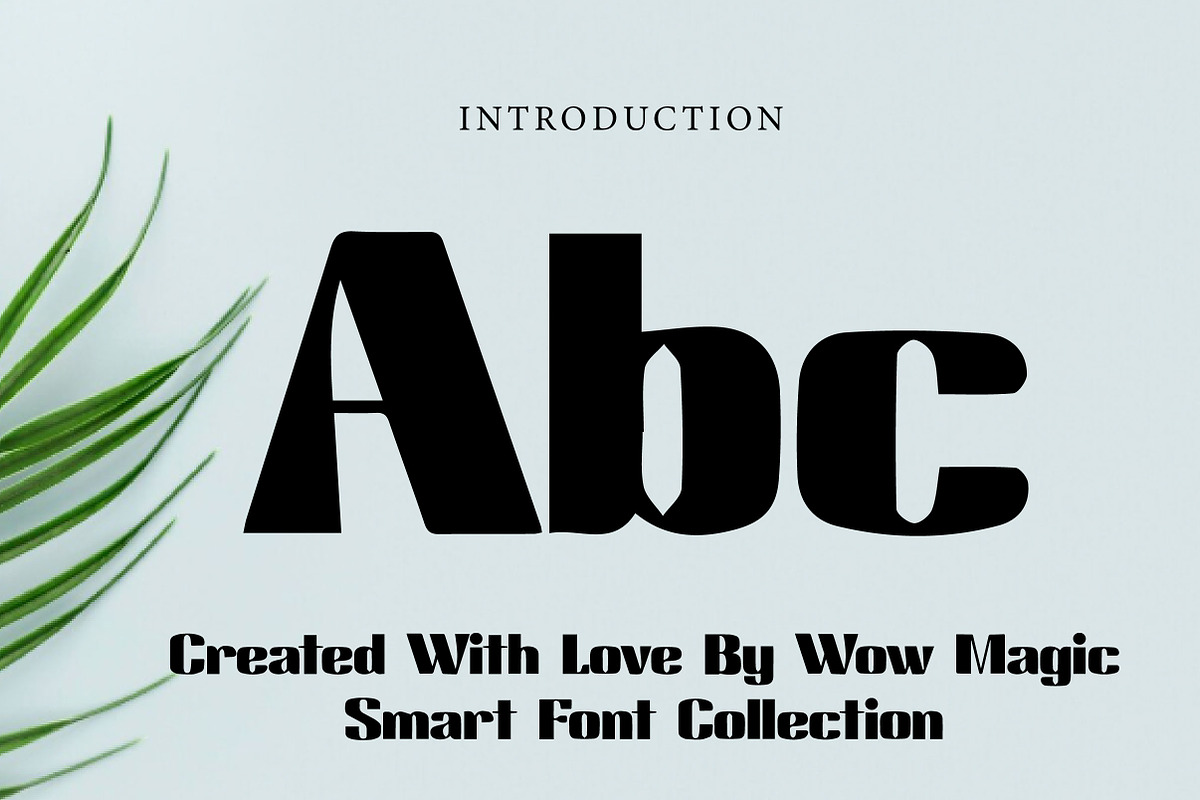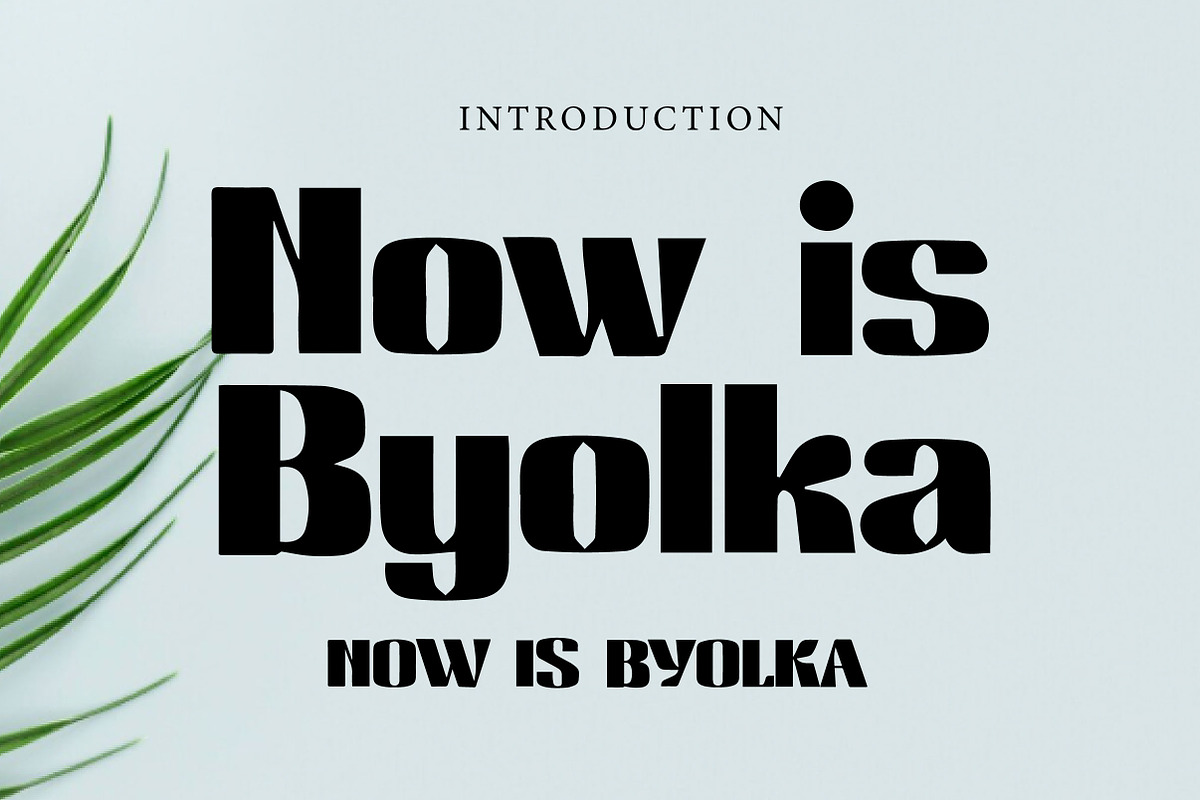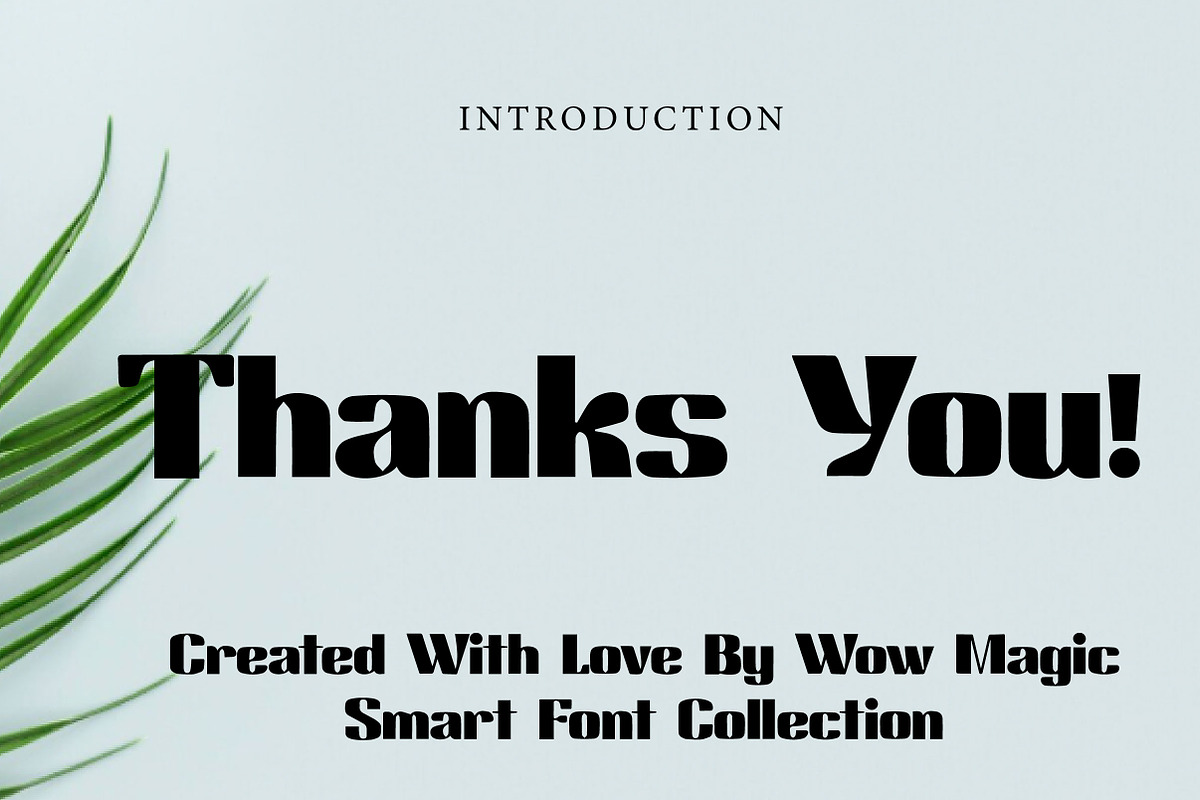
Now is Byolka
Byolka – Bold Retro Display Font
Short Description Byolka is a bold and expressive display font with a strong retro feel, perfect for eye-catching headlines, branding, posters, and creative designs.
Full Description Byolka is a powerful and stylish display font designed to make a bold statement. With its chunky shapes, smooth curves, and slightly vintage-inspired character, this font delivers a strong visual impact in any design.
The font blends retro aesthetics with a modern twist, making it ideal for projects that need both personality and readability. Its bold structure and unique letterforms give your text a confident and memorable presence.
Whether you're working on branding, posters, logos, packaging, or social media graphics, Byolka helps your design stand out with a distinctive and professional look.
This font is perfect for creatives who want a striking display typeface that balances boldness with style.